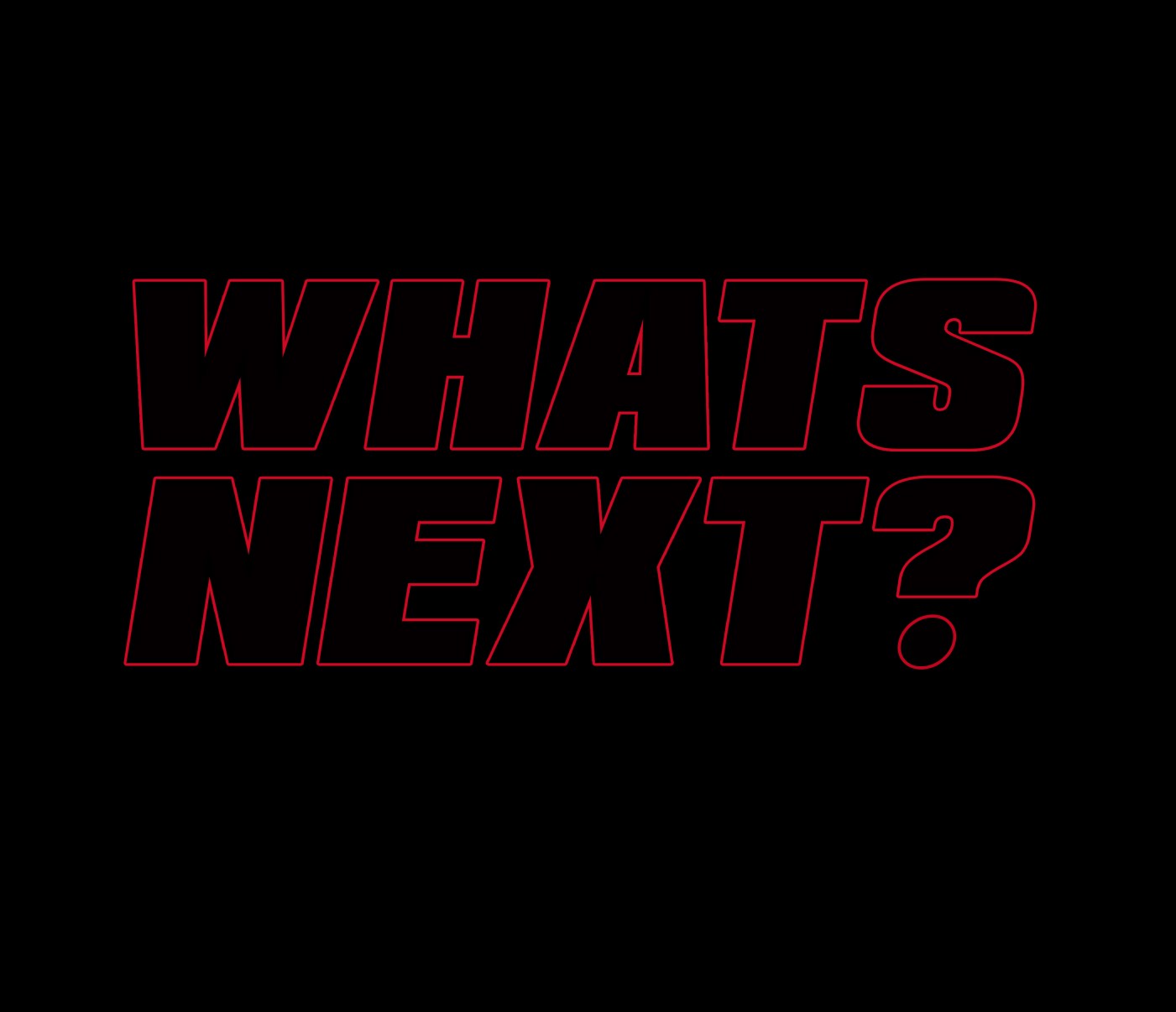
Need help identifying typeface from Album Artwork
I've been spotting this typeface or at least this 'style' of type a lot in a few album artworks and promo material. I have a body of work which it could potentially work well for, but can't seem to put my finger on the typeface.
I have found one alternative typeface, but it doesn't seem to carry the same visual impact.
Need help finding this typeface or even alternatives which are similar?
While not an exact match, you can get fairly close with Padaloma Italic and cheating a bit in Photoshop (the ball of the question mark was handled differently than the curl, for example).